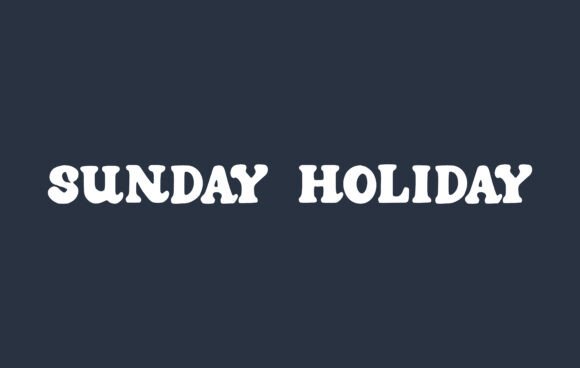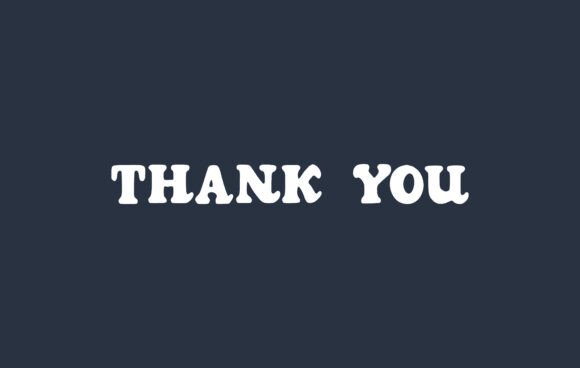
Introducing Hash Browns Font: A Deliciously Retro Serif Style
Are you looking for a font that serves up a warm, rounded serif style that’s both comforting and fun? Look no further than Hash Browns Font! This delightful typeface is perfect for diner-style menus, foodie branding, and anything craving a retro flair. In this article, we’ll dive into the world of Hash Browns Font, exploring its features, uses, and what makes it a must-have for designers and crafters.
The Story Behind Hash Browns Font
Hash Browns Font is a carefully crafted typeface designed to evoke the feeling of a warm, cozy breakfast diner. Its rounded serif style is reminiscent of classic signage and packaging from the 1950s and 60s, but with a modern twist that makes it feel fresh and fun. The font’s creator aimed to capture the essence of a bygone era, when diners and drive-ins were the go-to spots for a quick, comforting meal.
Key Features of Hash Browns Font
- Warm and Rounded Serifs: Hash Browns Font features soft, rounded serifs that give it a friendly, approachable feel.
- Comforting and Fun: The font’s playful vibe makes it perfect for designs that need a lighthearted touch.
- Retro Flair: Hash Browns Font is heavily influenced by classic signage and packaging from the mid-20th century.
- Highly Legible: The font’s clear, open design ensures that it’s easy to read, even at small sizes.
Uses for Hash Browns Font
Hash Browns Font is a versatile typeface that can be used in a variety of design projects, including:
- Diner-Style Menus: Create mouth-watering menus that transport customers back in time.
- Foodie Branding: Give your food brand a fun, retro twist with Hash Browns Font.
- Packaging Design: Add a touch of nostalgia to your product packaging with this charming font.
- Signage and Displays: Use Hash Browns Font to create eye-catching signs and displays that grab attention.
Tips for Using Hash Browns Font
To get the most out of Hash Browns Font, follow these design tips:
- Pair with Bold Fonts: Combine Hash Browns Font with bold, sans-serif fonts for a striking contrast.
- Use in Headlines and Titles: Hash Browns Font is perfect for headlines and titles, where its playful vibe can shine.
- Experiment with Colors: Try pairing Hash Browns Font with bright, bold colors to amplify its retro feel.
Hash Browns Font is a delightful typeface that’s sure to bring a smile to your design projects. Its warm, rounded serif style and retro flair make it perfect for diner-style menus, foodie branding, and anything craving a nostalgic touch. With its highly legible design and versatile uses, Hash Browns Font is a must-have for designers and crafters looking to add a dash of fun and personality to their work.